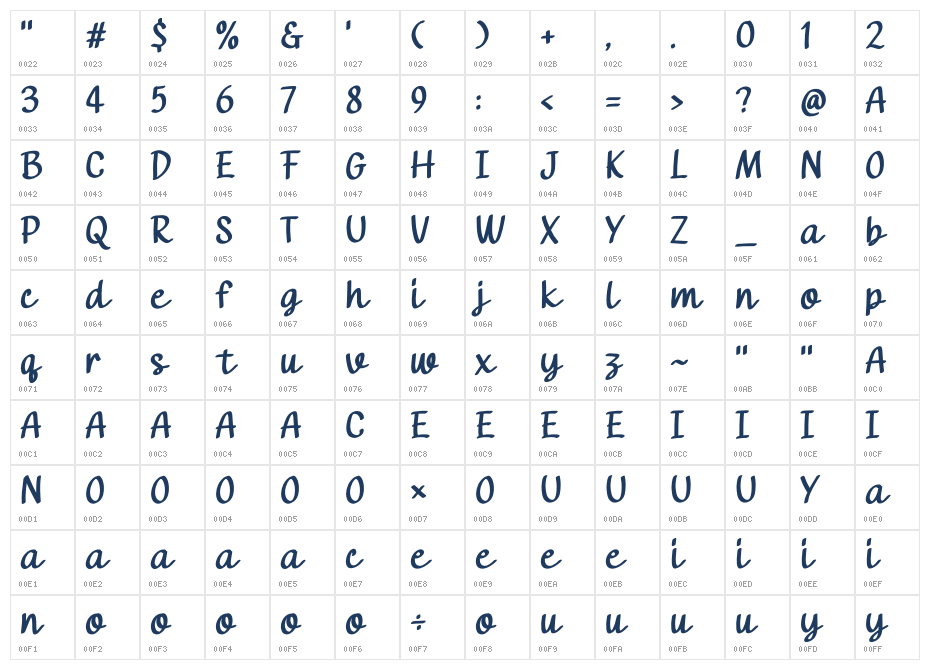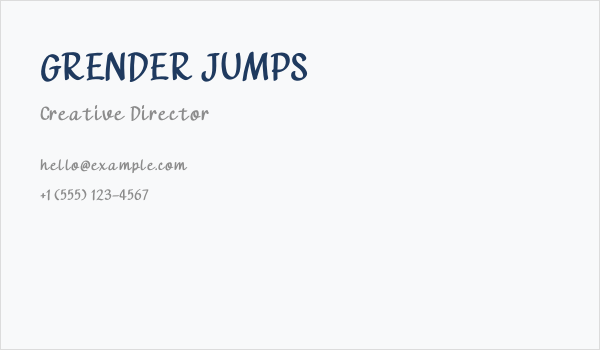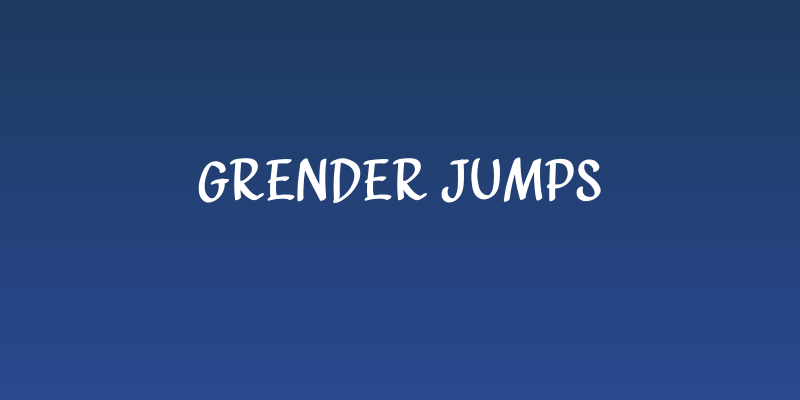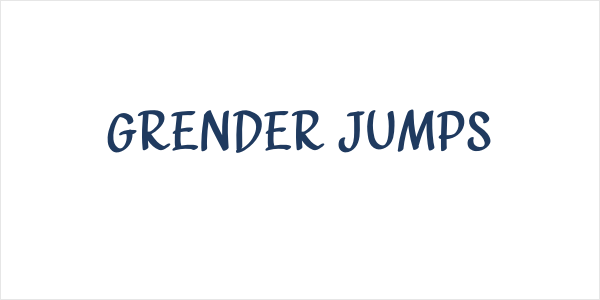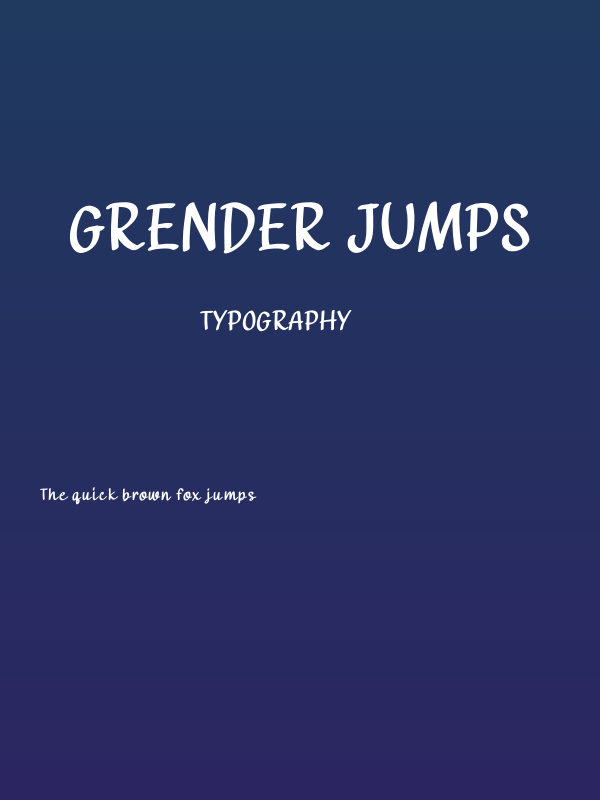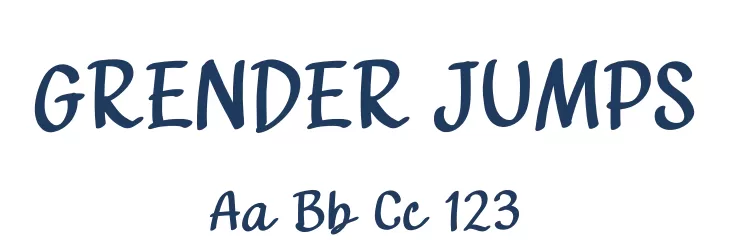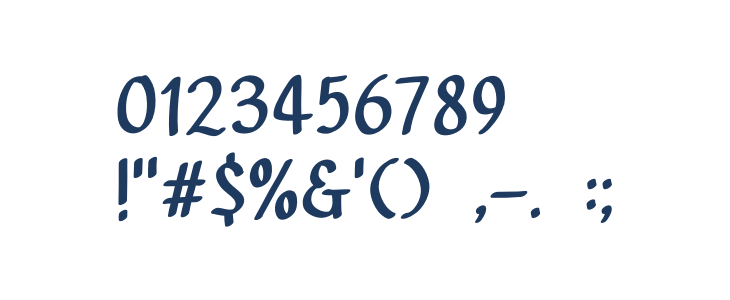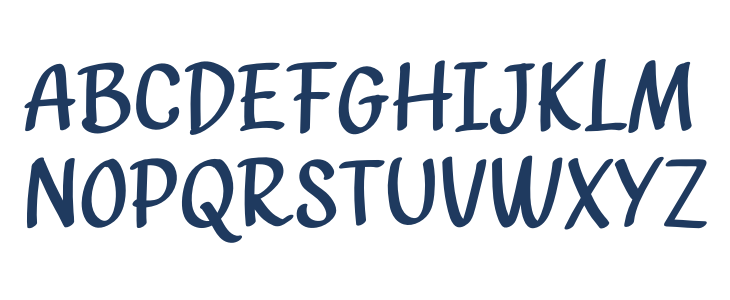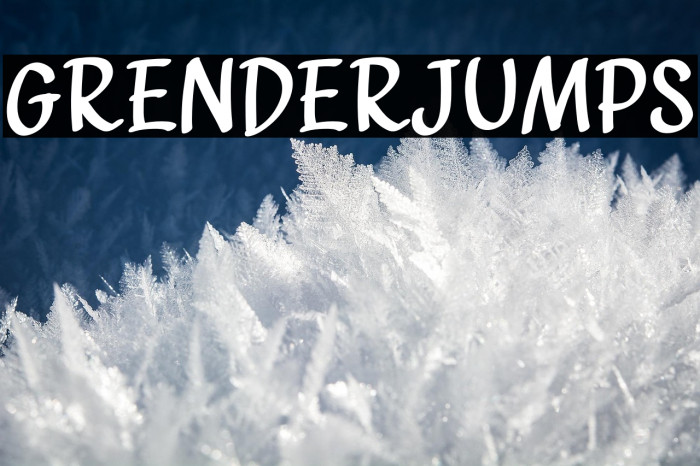
GRENDER JUMPS Font
GRENDER JUMPS Description
A casual, handwritten script font with a playful and friendly appearance, featuring slightly irregular strokes and a smooth flow.
| Overall Style | Casual, Friendly, Handwritten |
| Use Case | Headlines, Body text, Logos, Personal projects |